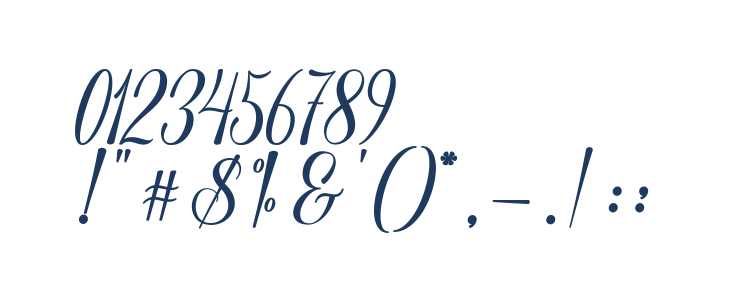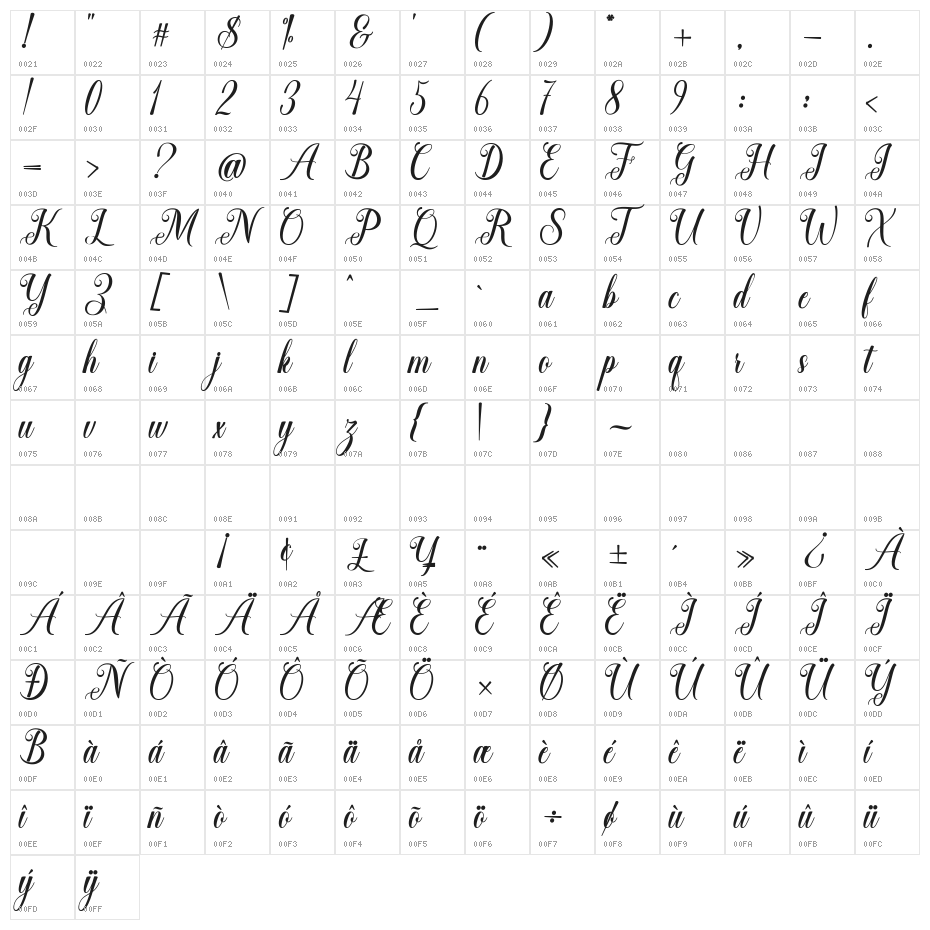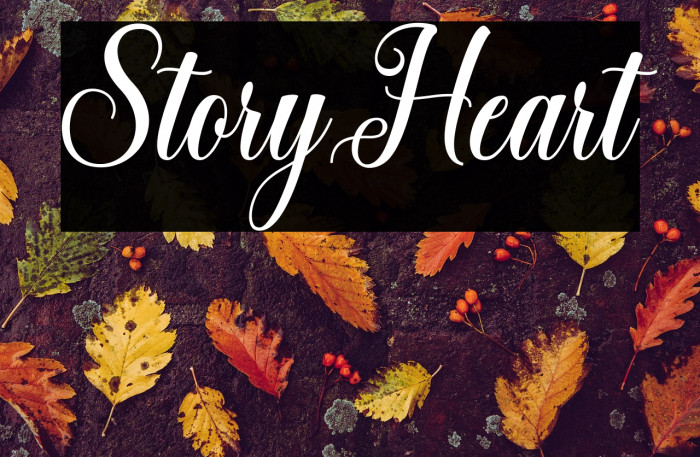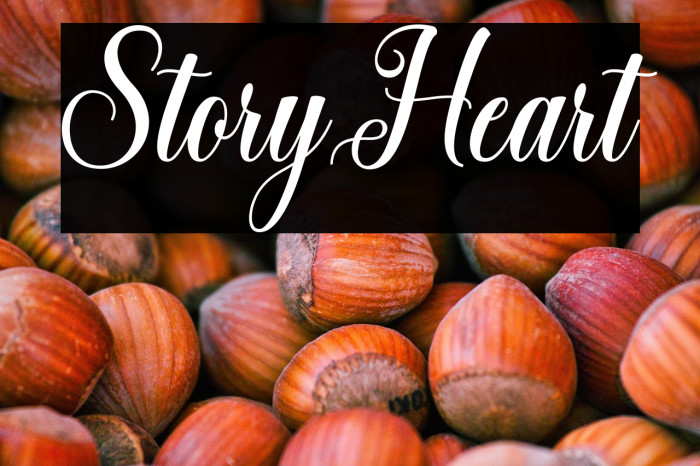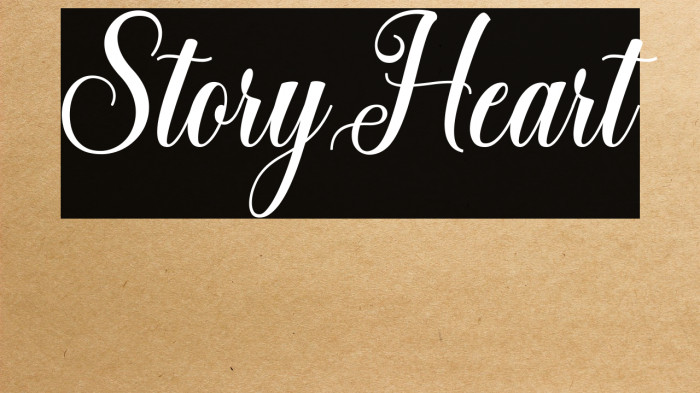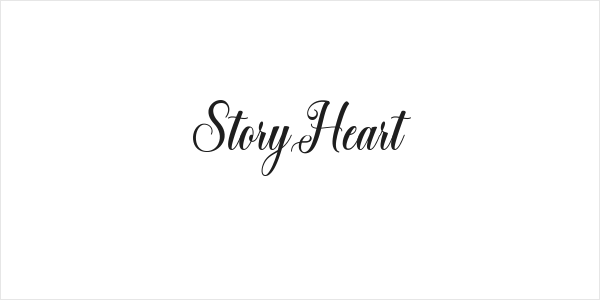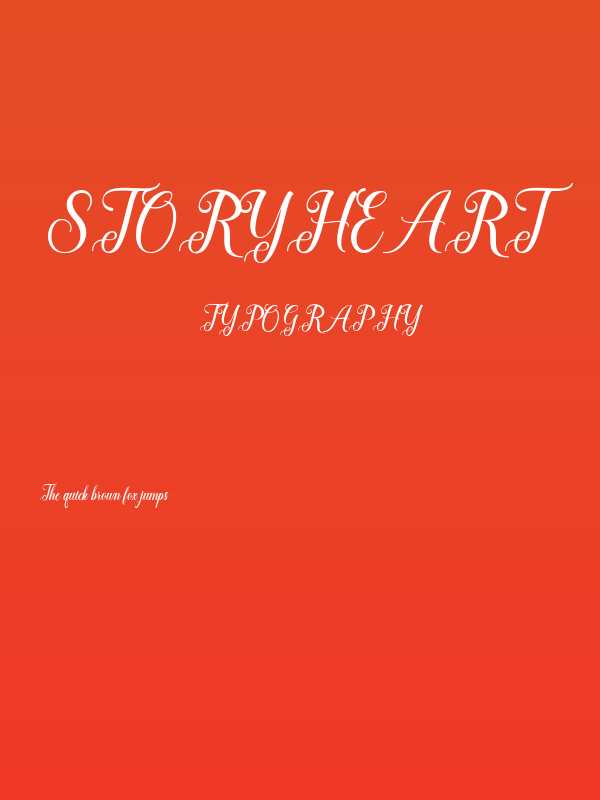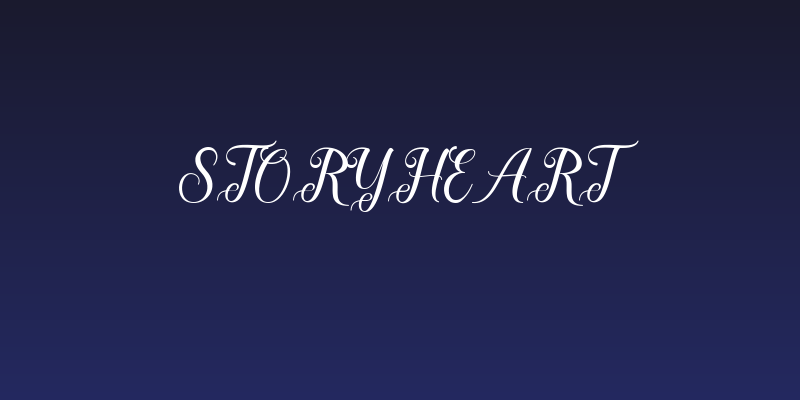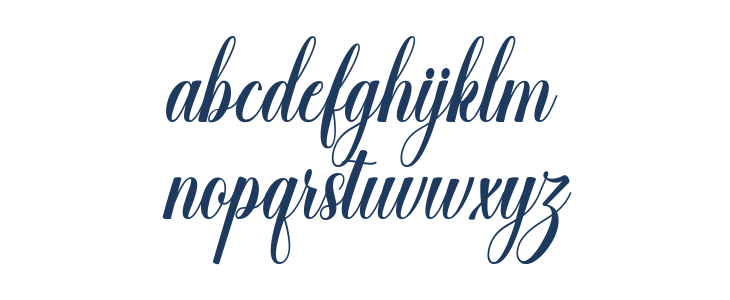
StoryHeart Font
StoryHeart Description
This elegant script font features a flowing, cursive style with intricate swashes and flourishes that give it a romantic and sophisticated appearance. The uppercase letters are adorned with decorative loops, while the lowercase letters maintain a smooth, connected flow. The numerals and special characters are designed with the same graceful curves, ensuring a cohesive look throughout. The font's high contrast in stroke thickness adds to its dramatic flair, making it ideal for projects that require a touch of elegance and refinement.
| Overall Style | Elegant, Romantic |
| Use Case | Headlines, Invitations, Branding |
| Proposed Projects | Ideal for wedding invitations, greeting cards, elegant branding, and luxury product packaging. |